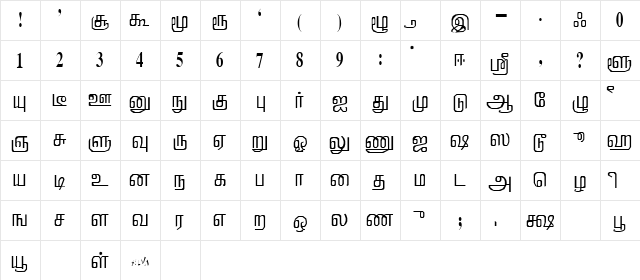
Mallikai Regular
Design Context for Mallikai Typeface
Mallikai takes a measured approach to typography — its balanced proportions and neutral character make it a reliable workhorse for both digital and print work.